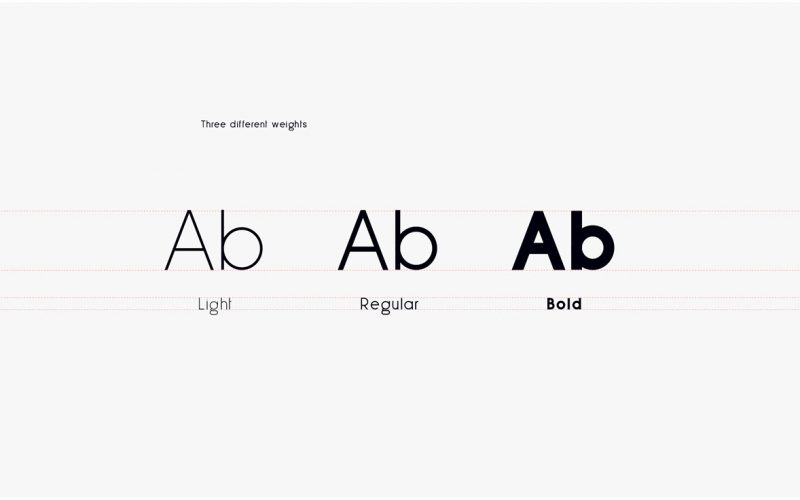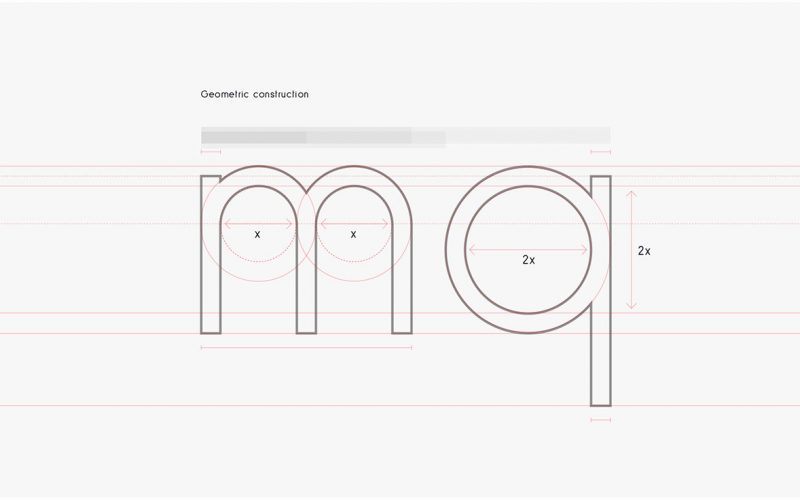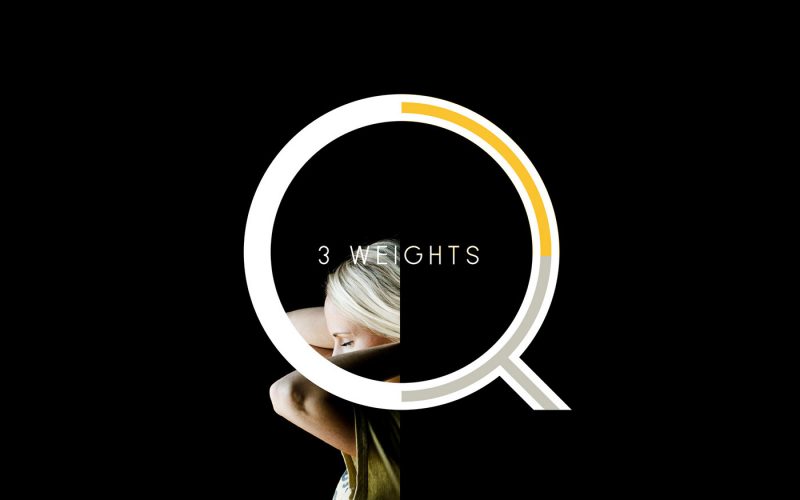
Less Sans Minimal Typeface
Hello, I am proud to introduce the new product “Less” sans serif font. The versatility of the font makes it suitable for a wide range of applications, from small text to high-impact headlines. Less Sans is a minimal typeface designed with love to suit most of your design requirements. The font was made as minimal as possible and was constructed around a geometric guidelines, shapes and measurements.